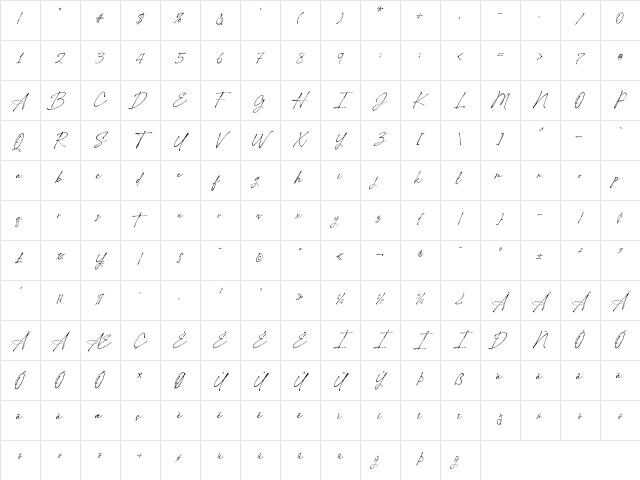
Complete Hanifah Salamah Regular glyph index. Displaying only characters natively supported by Hanifah Salamah Regular font.
Hanifah Salamah is a composed and adaptable typeface that performs quietly and consistently across a wide range of design contexts.